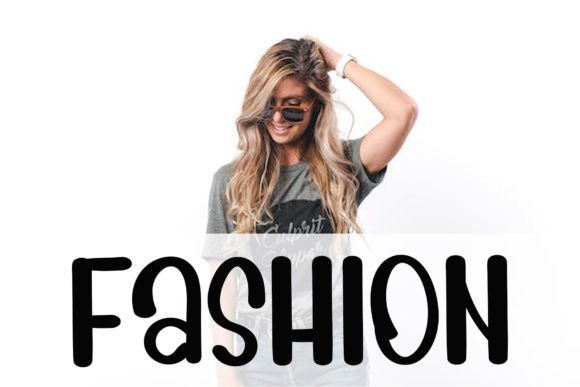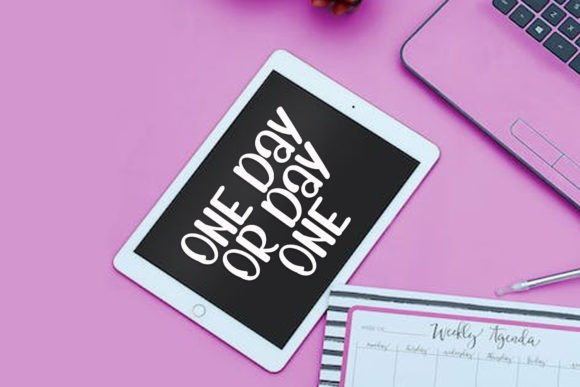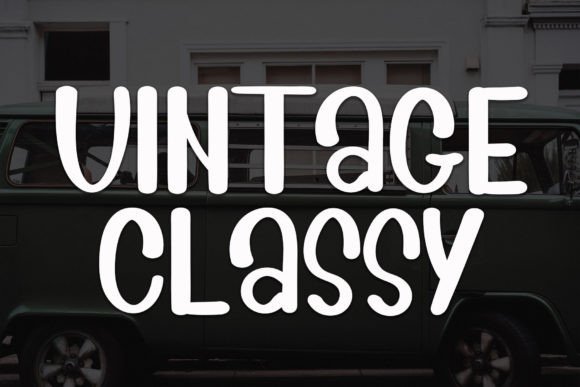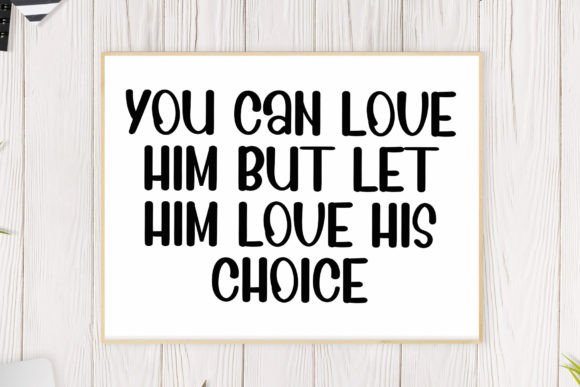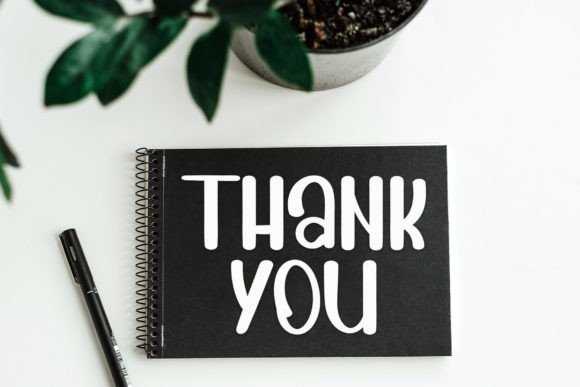
The Perfect Blend: Unlocking the Power of Juice Font
Remember that moment when a single font can elevate your entire design and transport you to a world of endless possibilities? For designers, this is a sensation that’s hard to describe, but easy to recognize. It’s the ‘aha’ moment when every element falls into place, and your vision starts to take shape. For many creatives, this magic happens when they stumble upon the perfect font – one that’s not only visually stunning but also versatile and easy to work with.
Enter Juice Font, a sweet and friendly display font that’s designed to bring a touch of natural charm to your designs. With its unique style and effortless feel, Juice Font is the perfect companion for any creative project. Whether you’re working on a branding campaign, a marketing brochure, or a social media graphic, this font is sure to bring your ideas to life.
Juice Font Key Features
- Font Family: Juice Font is a sans-serif font family designed for digital use, offering a clean and modern look.
- Character Set: The font family includes a wide range of characters, including Latin, Cyrillic, and Greek scripts, making it suitable for multilingual designs.
- Unique Characteristics: The font features a distinctive, rounded sans-serif design with a subtle flair at the terminals, giving it a friendly and approachable feel.
Juice Font Review
I recently had the chance to dive into the “Juice Font” and share my honest thoughts on it. ✨ One of the first things I noticed was the friendly, approachable feel of the font. It’s perfect for any brand or project that wants to convey a sense of approachability and comfort. The font’s rounded edges and soft lines make it an excellent choice for user interfaces and digital products.
Another great aspect of “Juice Font” is its versatility. ✨ It’s suitable for both body text and headings, and its range of weights and styles allows for endless possibilities. Whether you’re creating a new logo or updating your website’s typography, “Juice Font” has got you covered.
- ⚠️ The font may not be ideal for projects that require a more formal or professional tone.
- ⚠️ “Juice Font” can appear somewhat generic, which may not make it stand out in crowded design spaces.
Overall, I think “Juice Font” is a solid choice for designers looking for a friendly, approachable font. While it may have some limitations, its versatility and range of styles make it a great option for many projects. With a little creativity, you can use “Juice Font” to create designs that truly shine.
Tips for Getting the Most Out of Juice Font
For optimal results, use Juice Font for titles, headings, and other prominent text elements. Experiment with different font sizes and colors to create visually appealing designs.
Juice Font is ideal for:
- Health and wellness marketing
- Children’s products and services
Alternatives to Juice Font for Designers
Playfair Display is an elegant and luxurious serif font perfect for creating high-end designs. It’s ideal for use in luxury branding, invitations, and magazines. When to use: For projects that require a touch of sophistication and elegance. Playfair Display is similar to Juice Font in terms of its ornate and luxurious feel, but it has a more refined and classic look.
Pacifico is a beautiful and modern script font that works well for creative and artistic projects. It’s perfect for use in branding, packaging, and advertising. When to use: For projects that require a touch of creativity and playfulness. Pacifico is similar to Juice Font in terms of its casual and relaxed feel, but it has a more modern and trendy look.